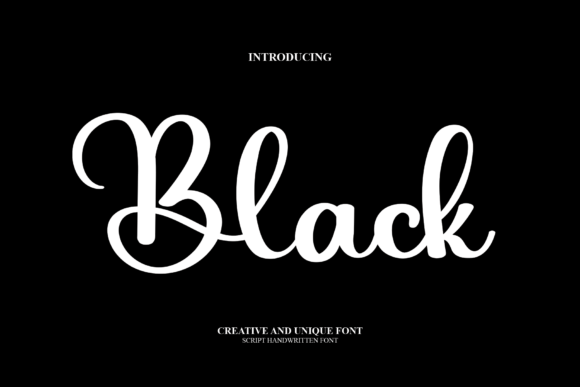
The Sweet Charm of Black Font: A Designer’s Delight
I’ll never forget the time I was working on a wedding invitation project, and my client asked for a font that was ” elegant, romantic, and beautiful.” I scoured the internet, tried countless fonts, but nothing seemed to fit the bill. That was until I stumbled upon Black Font. ✨ This gorgeous script font has been a game-changer for me, and I’m excited to share its charm with you.
- ✨ Beautiful, flowing curves in each letter that exude elegance and sophistication
- ✅ Perfect for wedding invitations, thank you cards, and other romantic designs
- ✅ Stunning on quotes, greeting cards, logos, and business cards
- ✅ Easy to read and pairs well with a variety of fonts
- ⚠️ Some letters may require manual kerning for optimal spacing
- 🤔 Limited availability of certain glyphs or special characters
The Designer Inspiration Behind Black Font
Black Font was inspired by the beautiful, handwritten scripts of the past. Its creator, a talented designer, wanted to capture the essence of traditional calligraphy and bring it into the digital age. With its flowing curves and elegant lines, Black Font is a true masterpiece.
Q: Is Black Font suitable for body text?
A: While Black Font is beautiful, it’s best used for headlines, titles, and short paragraphs. Its elegant curves and flowing lines make it perfect for display text, but may not be the best choice for long-form reading.